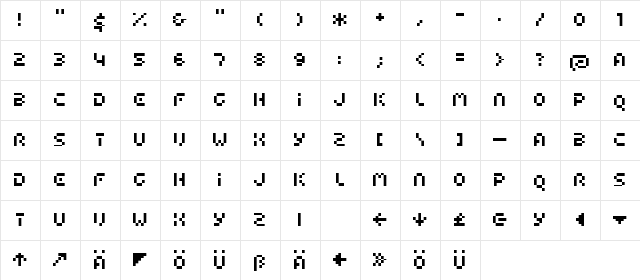
HIAIRPORTDEPARTURE Regular
HIAIRPORTDEPARTURE takes a measured approach to typography — its balanced proportions and neutral character make it a reliable workhorse for both digital and print work.